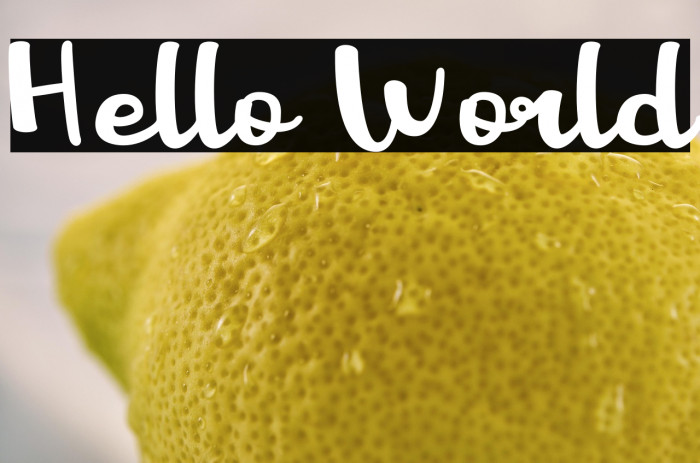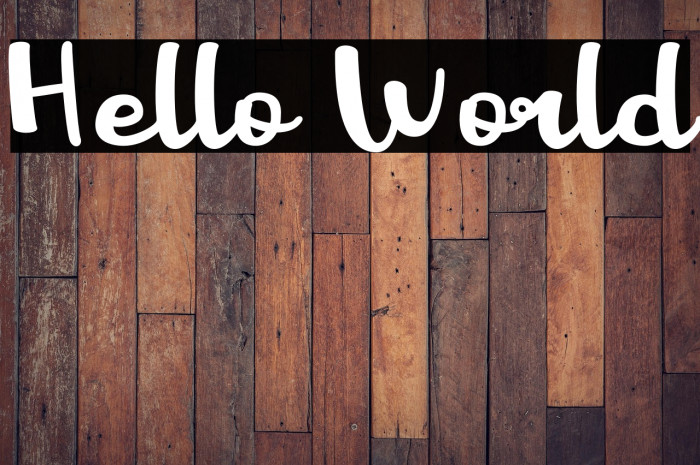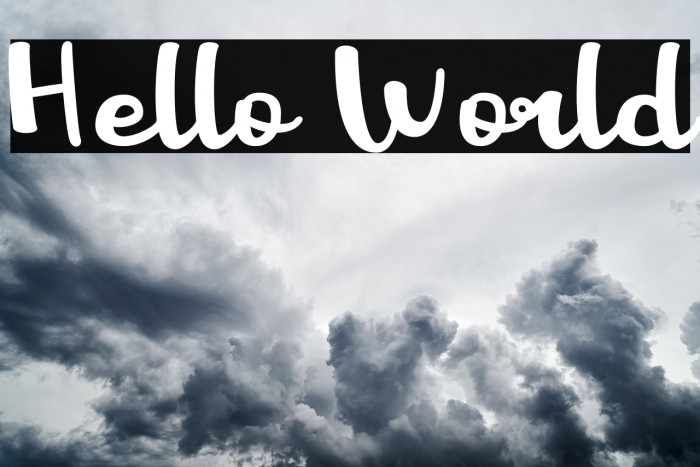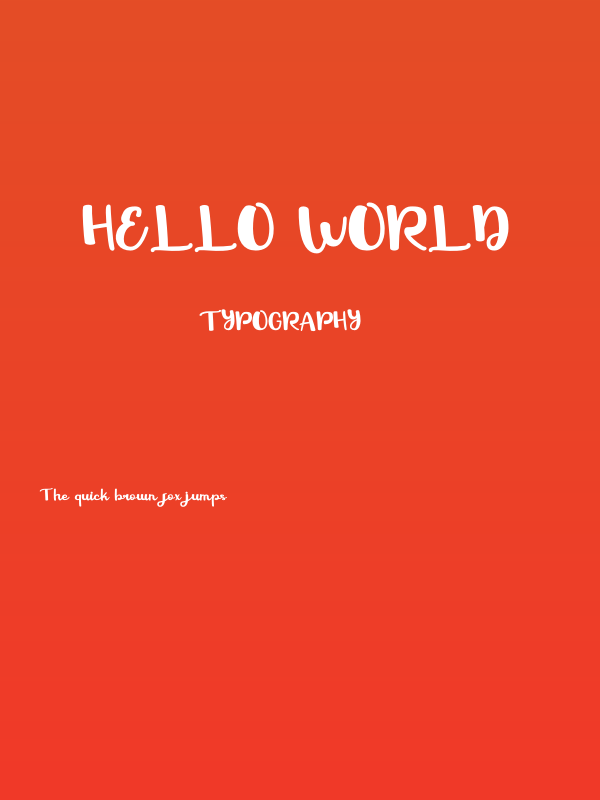
Hello World Font
Hello World Description
This font features a playful and casual script style with a handwritten appearance. The letters are bold and rounded, giving them a friendly and approachable look. Each character flows smoothly into the next, creating a sense of continuity and movement. The uppercase letters are slightly larger and more pronounced, while the lowercase letters maintain a consistent height, enhancing readability. The numbers are clear and distinct, matching the overall style of the alphabet. Special characters are well-integrated, maintaining the playful aesthetic. This font is ideal for projects that require a personal touch or a fun, informal vibe.
| Overall Style | Playful, Casual |
| Use Case | Headlines, Logos, Informal Text |
| Proposed Projects | Greeting cards, invitations, children's books, branding for playful or casual products. |